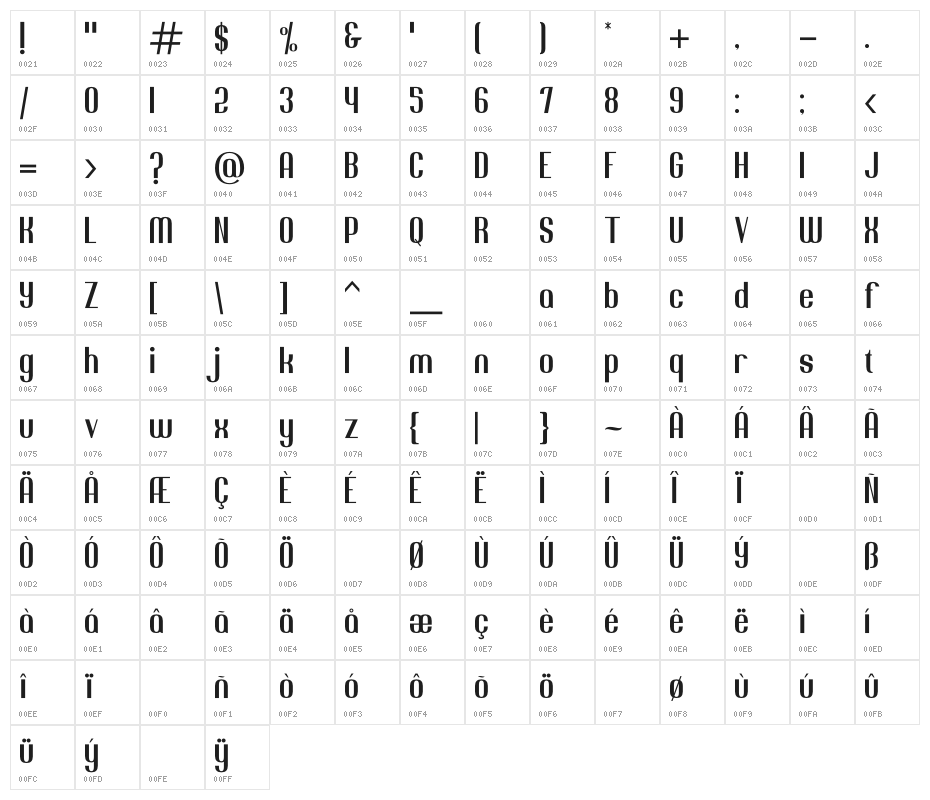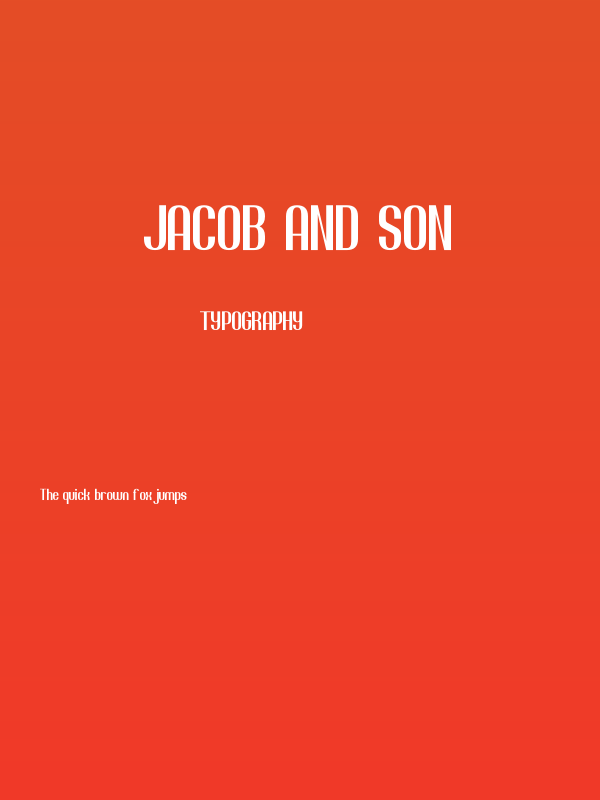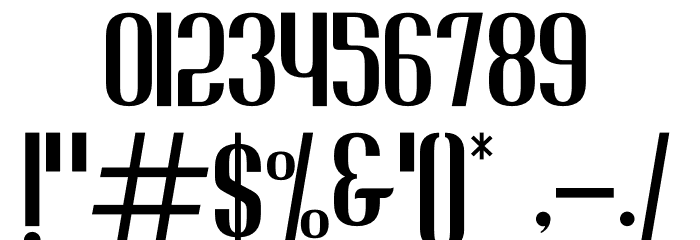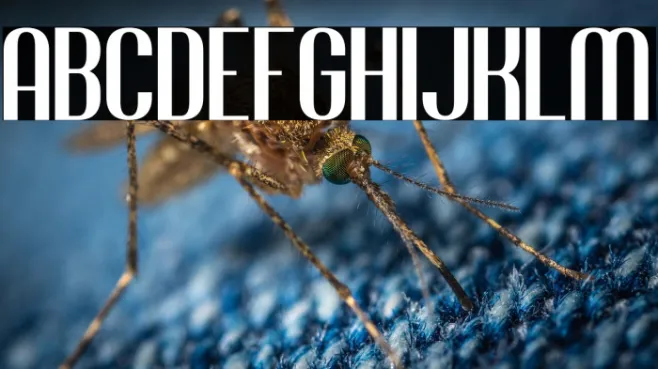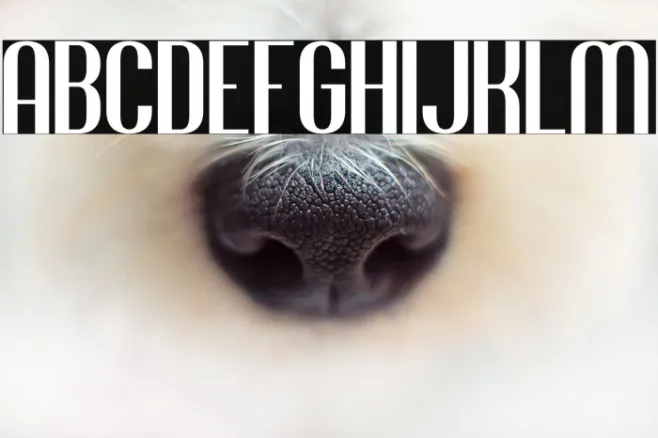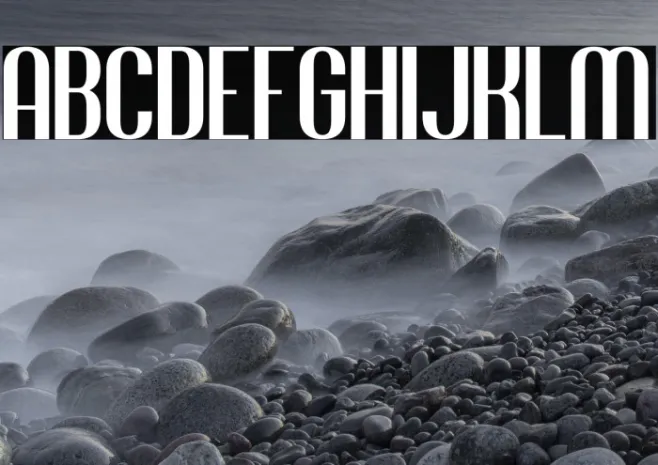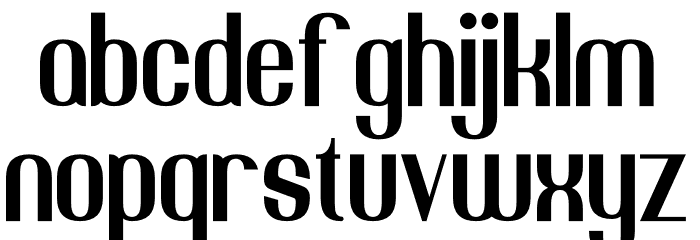
Jacob and son Font
Jacob and son Description
This font features a bold and modern design with a strong geometric influence. The uppercase letters are tall and narrow, with a consistent stroke width that gives them a sleek and streamlined appearance. The lowercase letters maintain this geometric style, offering a cohesive look across the typeface. The numerals are distinct and easily readable, matching the overall aesthetic. Special characters are designed to complement the letters, ensuring versatility in various design contexts. The font's clean lines and contemporary style make it suitable for a range of applications.